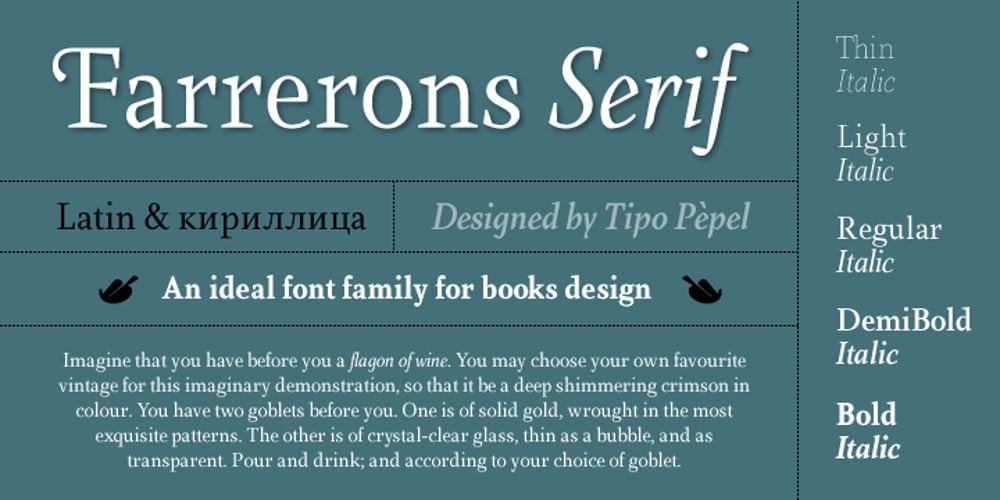
Farrerons Serif Font Family was designed by Josep Patau and published by Tipo Pèpel. Farrerons Serif contains 10 styles and family package options. Specially designed for text size, Farrerons is a full-working Open-type Font. Looking superbly readible but providing a distinctive formal character for immediate impact due to its sudden strokes, mixing delightfully the ancient Roman Trajan inspired uppercase characters with lowercase characters inspired in XV´s humanistic types. A contemporary design that evokes the past but also embraces the future. The font features a full set of small caps, aligning, proportional, oldstyle and proportional oldstyle figures, plus stylistic sets for initial and finishing decorative characters. The font also contains an extended character set supporting Central Europe and Cyrillic languages.